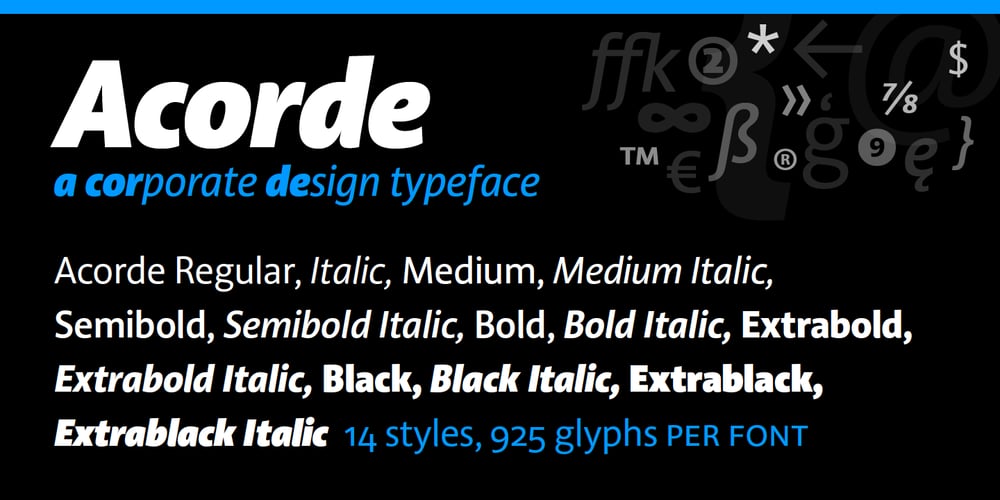
Acorde Font Family was designed by Stefan Willerstorfer and published by Willerstorfer. Acorde contains 14 styles and family package options. Please note: Acorde webfonts are exclusively available at willerstorfer.com Acorde is a reliable workhorse for large, demanding design projects. It was designed to be perfectly suited to all different sizes, from small continuous text to large headlines and big signage. The typeface’s name is derived from ‘a’ ‘cor’porate ‘de’sign typeface, however Acorde is not only suitable for corporate design programmes but for information design and editorial design purposes as well. Acorde’s inception was in early 2005 as Stefan Willerstorfer’s final project in the Type and Media course at the Royal Academy of Art in The Hague (NL). It is a humanist sans serif with noticeable diagonal contrast and shows clear influences of the broad nib pen, especially in the Italics. Acorde’s characterful details give it a distinctive appearance in large sizes and contribute to its high legibility in small sizes. It comes in 14 styles – seven weights in Roman and Italic each. While the proportions of the Regular style were chosen to guarantee optimal legibility without being too space consuming, the heavier the weight gets the more suitable it is for headline purposes. The heavy weights are relatively narrower than the lighter ones, which gives them a strong appearance. The huge character set contains 925 glyphs per font and covers a vast range of latin-based languages. Various accented letters, small caps, eleven figure-sets, superscript and subscript are all included. OpenType features allow for a comfortable use of the large set. Acorde was honored with the 2010 Joseph Binder Bronze award for type design by DesignAustria.